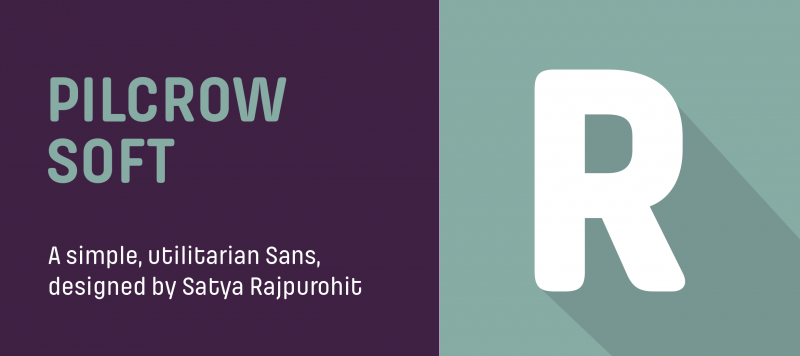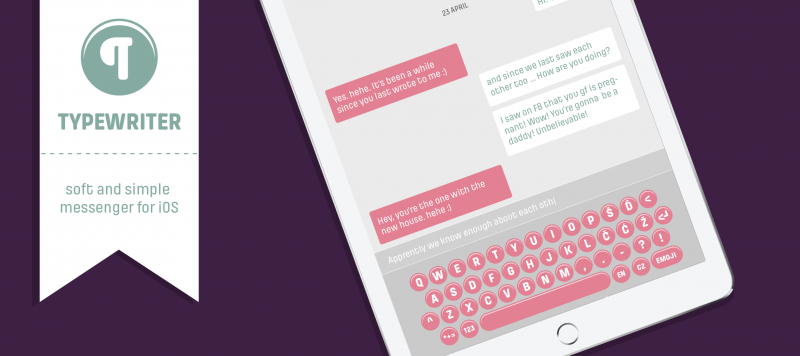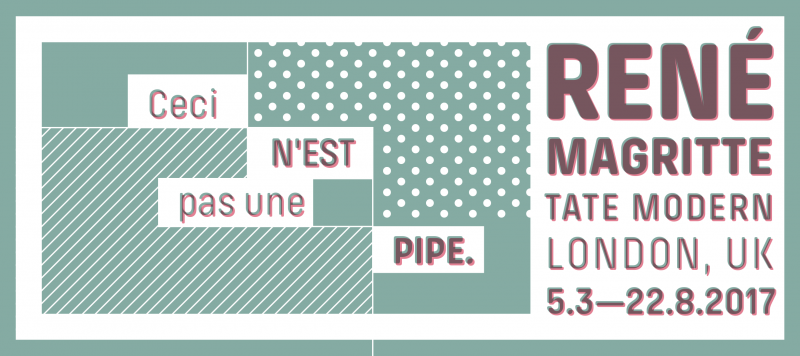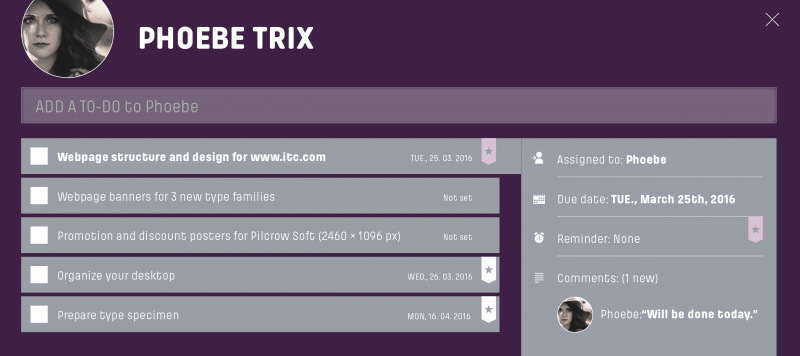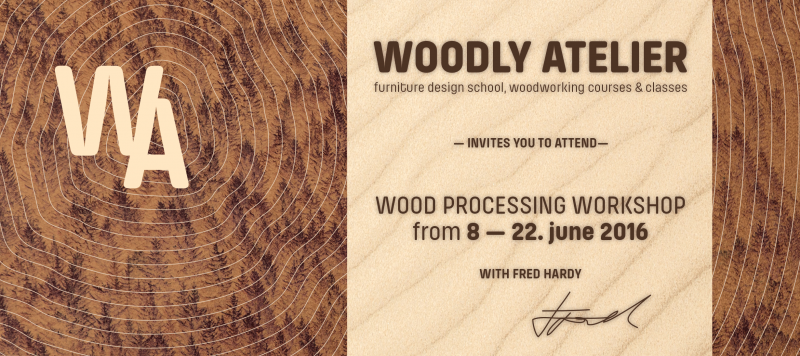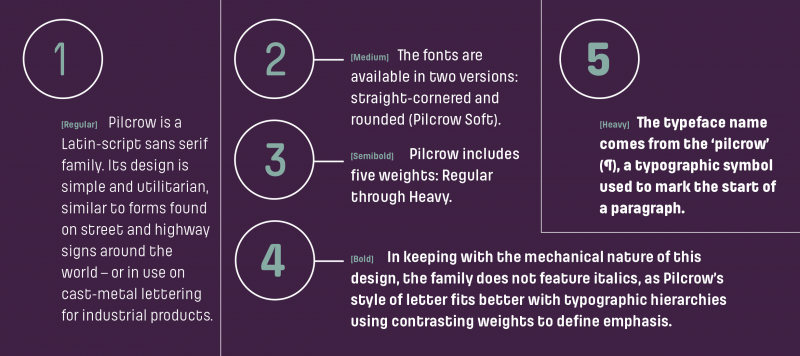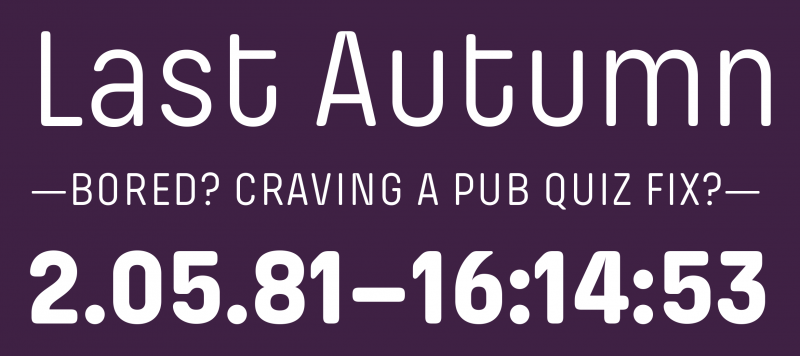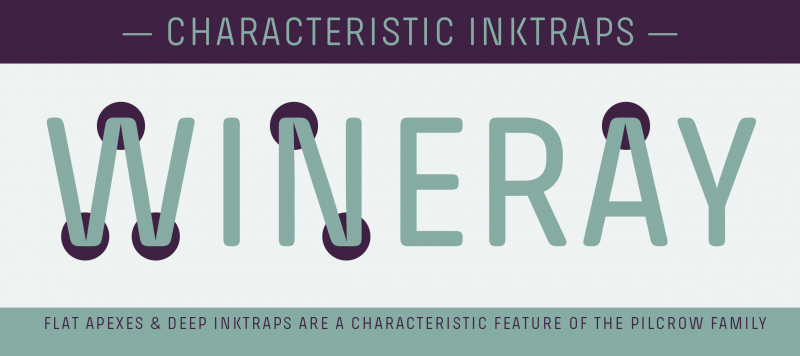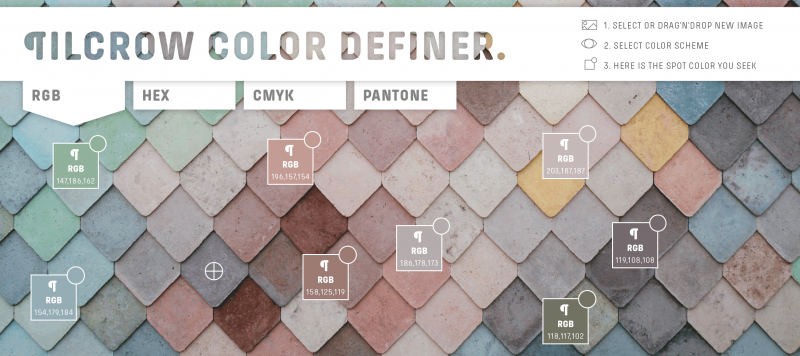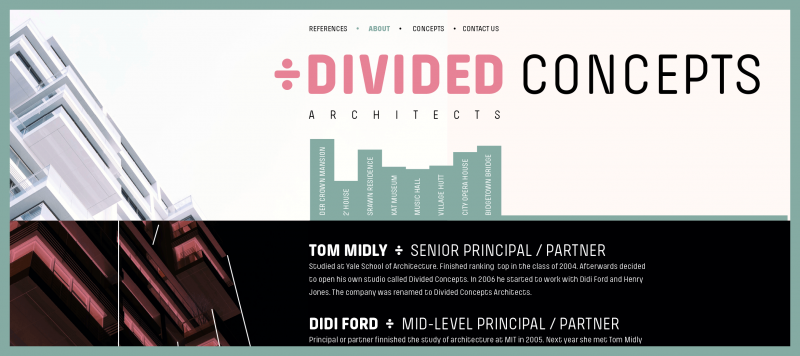
Pilcrow Soft is a Latin-script sans serif family. Its design is simple and utilitarian, similar to forms found on street and highway signs around the world – or in-use on cast-metal lettering for industrial products. The fonts are available in two versions: straight-cornered and rounded. While the normal Pilcrow fonts have sharp corners at their stroke terminals, Pilcrow Soft’s have been filed down. Pilcrow and Pilcrow Soft each include five weights: Regular through Heavy. In keeping with the design’s mechanical nature, the family does not include Italics, as Pilcrow’s style of letter fits better with typographic hierarchies using contrasting weights to define emphasis, whereas Italics use slants or a cursive stroke pattern.
Pilcrow’s glyphs have square-like proportions, although most of them are narrower than perfect squares. While the typeface does have a monospaced feeling in longer passages of text, the glyphs are proportionally-spaced. Each glyph’s width increases just slightly as one goes up the family’s weight scale. A benefit of typefaces created for utilitarian purposes is that their clean and simple letterforms often increase legibility onscreen. Pilcrow is particularly suited for short texts on websites or for newsticker-scrollbars on television. Because of web 2.0-style logos that have been popular in the past decade, Pilcrow’s Soft version appears particularly suited for use in ‘tech’ applications. The Pilcrow Soft fonts have a friendlier appeal to them, contrasting with the harder look of the Pilcrow fonts’ squared-off strokes.
Deep cuts, or large crotches, are a prominent feature of Pilcrow’s design. They are especially visible in the uppercase ‘A’, ‘M’, ‘N’, ‘V’ and ‘W’, as well as in the lowercase ‘v’, ‘w’, ‘y’ and the numeral ‘4’. In the bolder weights, these junctions fill in, but slight ink traps still remain visible. The counter forms of Pilcrow’s letters are very large: in the lowercase ‘a and ‘e’, for instance, which are more closed than open, the size of these negative spaces is still very apparent. The large counters achieve a more open shape in letters like ‘K’ or ‘k’, where the diagonals don’t collide with the vertical stroke. The lowercase ‘u’ is geometric, and not based on handwritten forms; instead of a full vertical stroke on its right-hand side, it has a semi-circular base. Some letters are full of ‘character’ in an almost dramatical sense – like the lowercase ‘t’, which is reminiscent of Eurostile or House Gothic, or the numerals. Because of the strong diagonal strokes in the ‘6’ and the ‘9’, there is no danger of these being confused with figures like ‘5’ or ‘8’.
The typeface name comes from the ‘pilcrow’ (¶), a typographic symbol used to mark the start of a paragraph.
Family Name Pilcrow Soft
Designer(s) Satya Rajpurohit
Classification Sans, Display